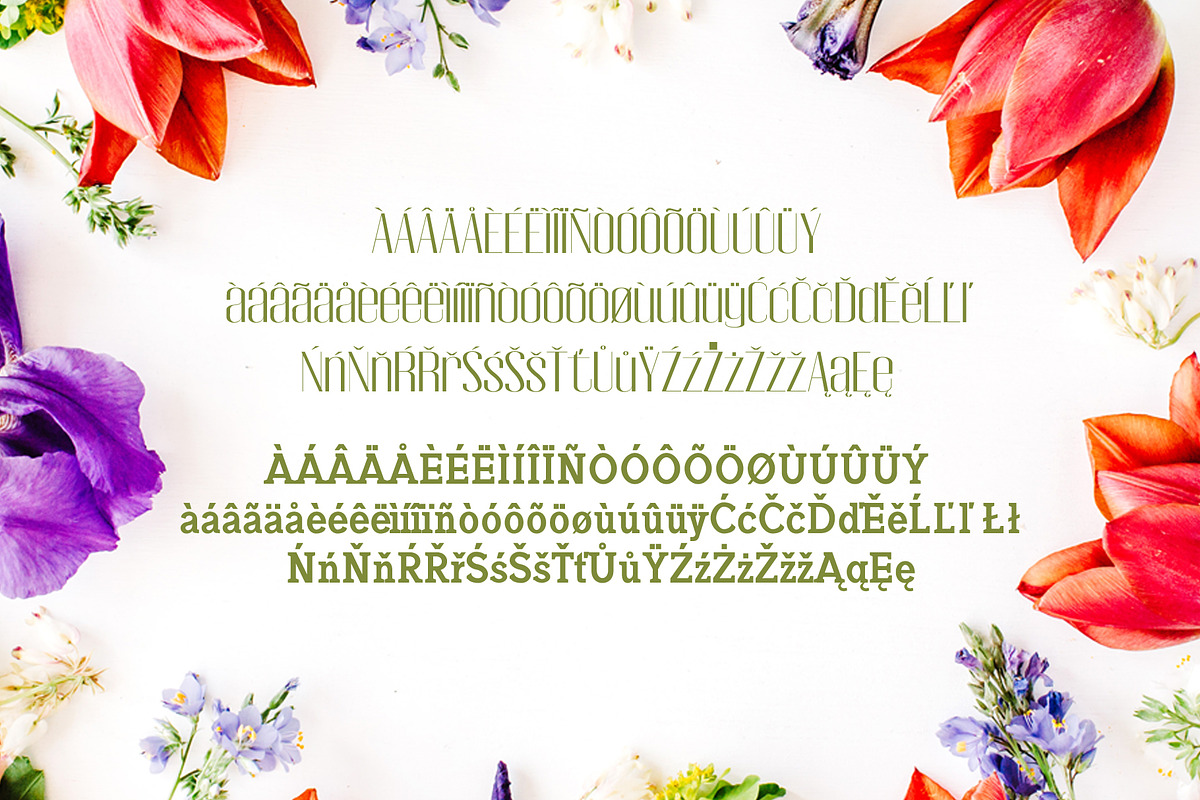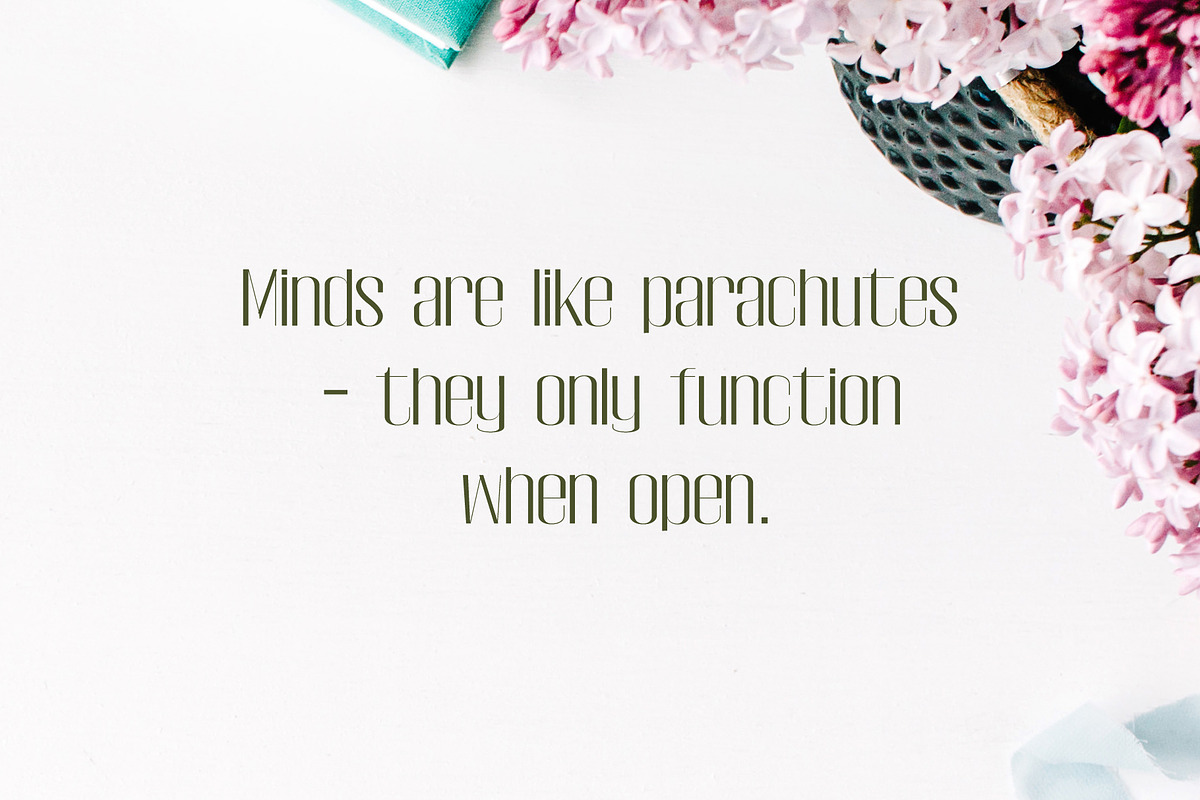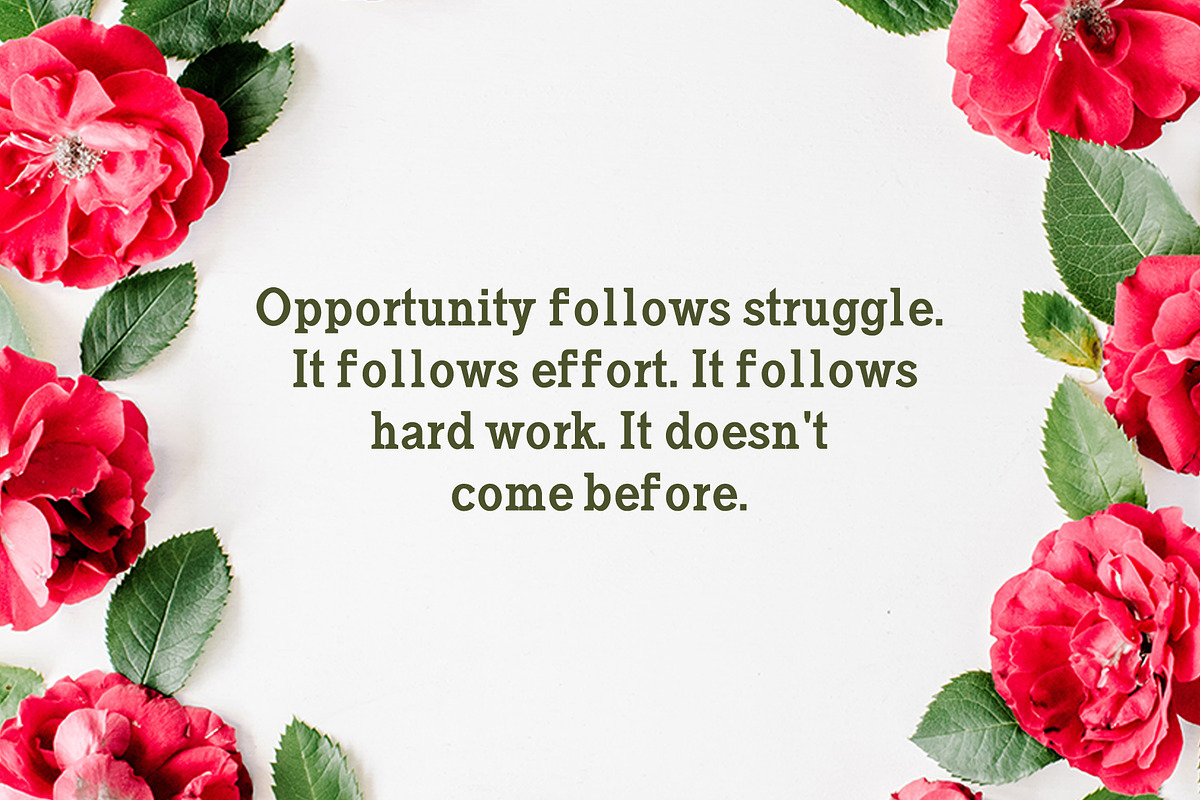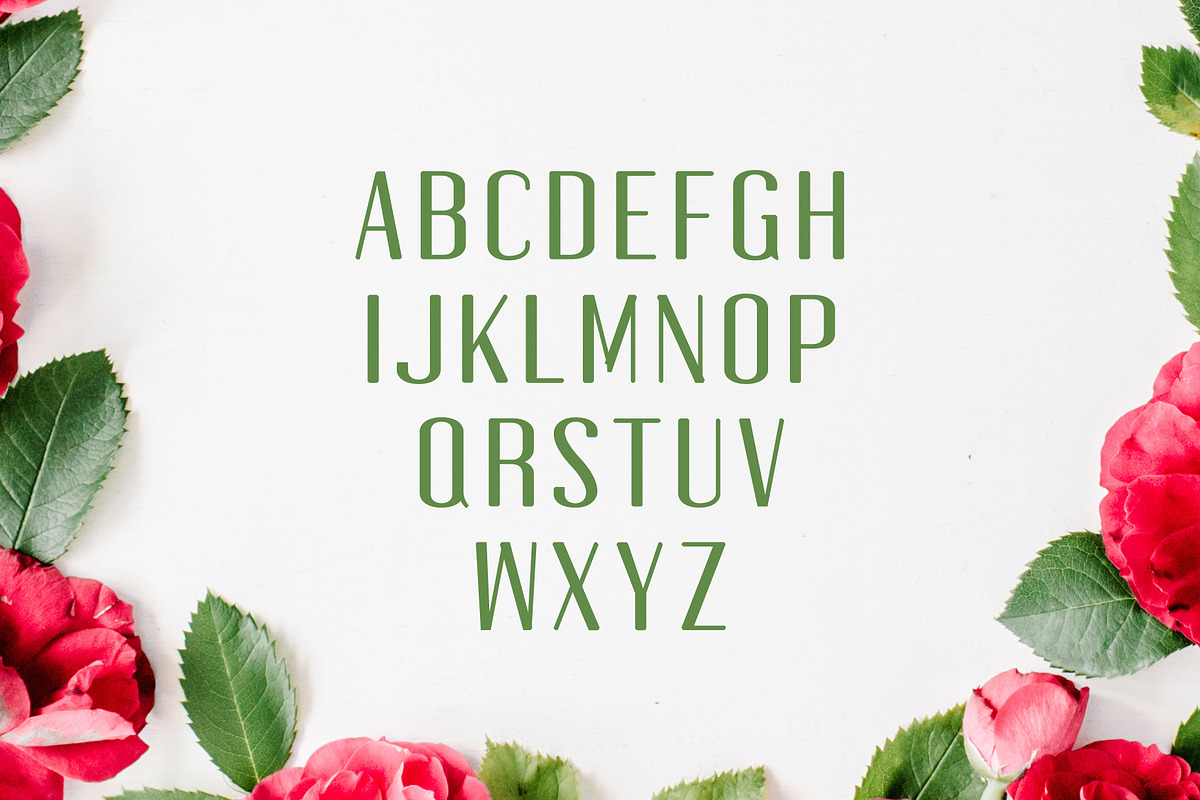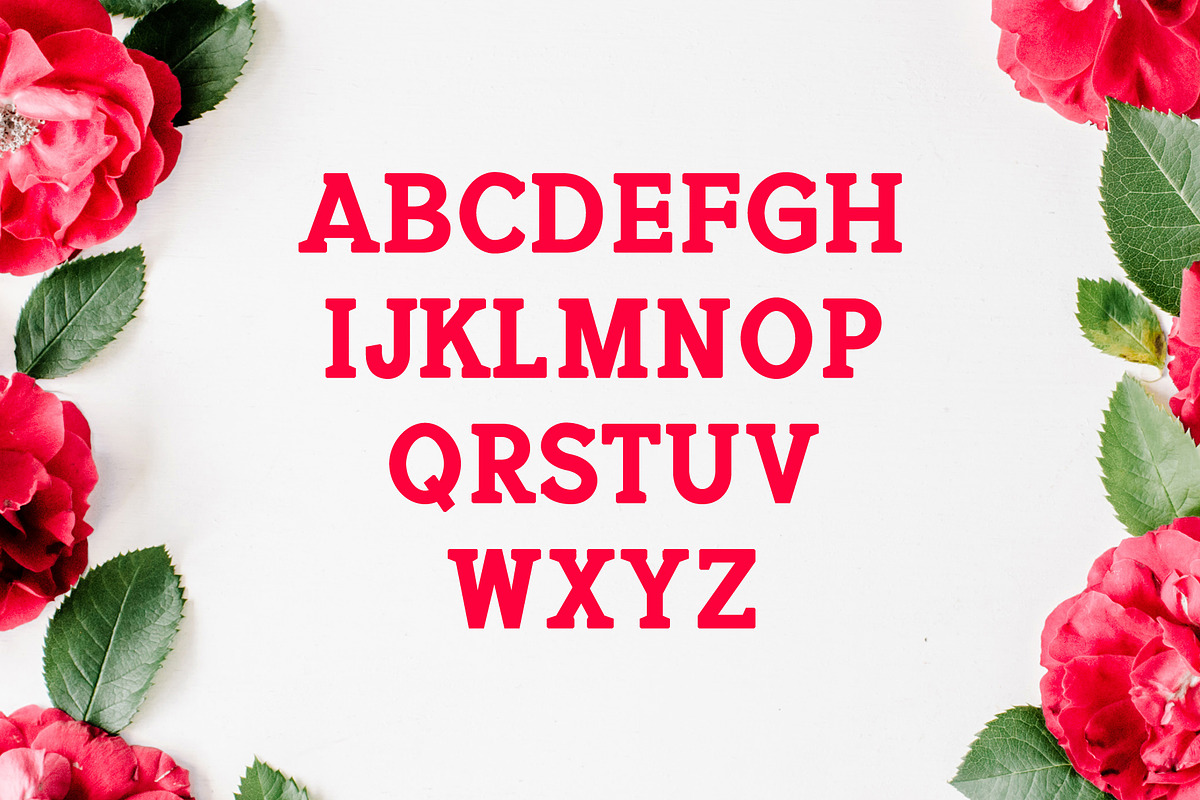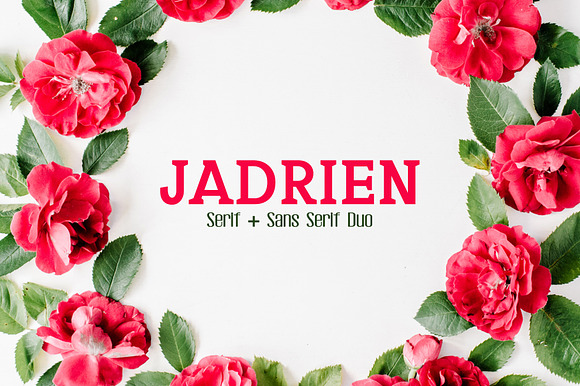
Jadrien Serif + Sans Duo 5 Font Pack
Jadrien Serif + Sans Serif Duo Font Family Pack is an eye catching typeface, let you create more impression with your design. This will look gorgeous on logos, titles, web layouts, branding, wedding invites, business cards, and quotes,t-shirt, branding & logo projects, merchandise, social media posts, product packaging, and more.
Jadrien Serif + Sans Duo 5 Font Pack by Creativetacos fits naturally into Branding, posters, packaging, typography.